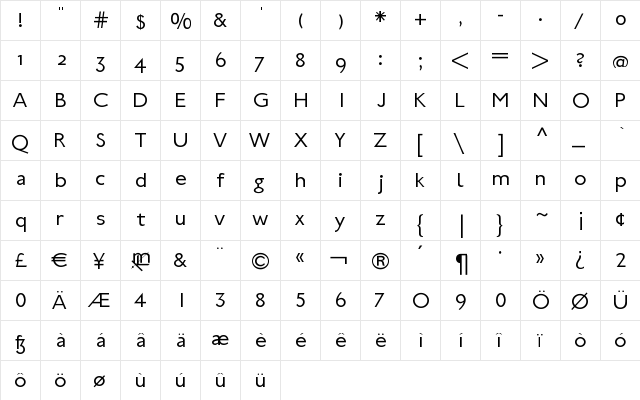
Ubahn-Light Regular
Design Context for Ubahn-Light Typeface
Ubahn-Light offers clean, dependable letterforms without strong stylistic allegiance, making it a practical choice for designers who need flexibility. Its slender proportions lend an understated elegance to any composition.
Pro Tip: Use Ubahn-Light in both headline and body roles to test its range before committing to a single application.